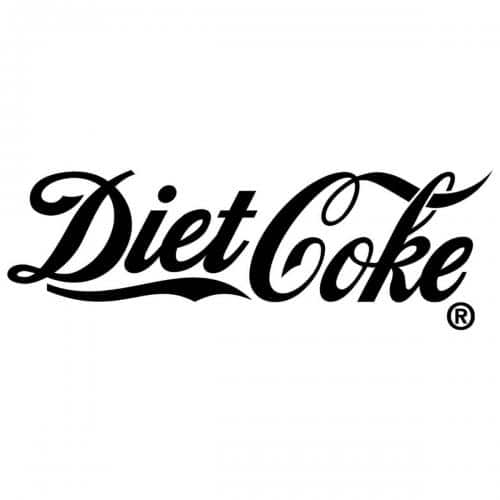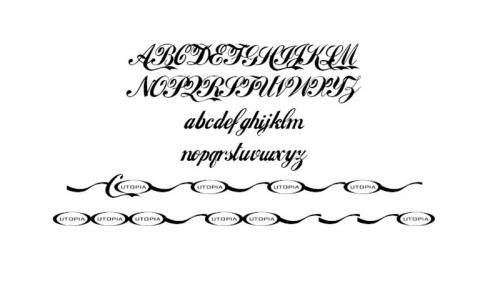
The Diet Coke is a sugar-free and no-calorie soft drink that was introduced on 8 July 1982. The Loki Cola Font is the font used for logo of Diet Coke. This font is designed by Dale Harris.